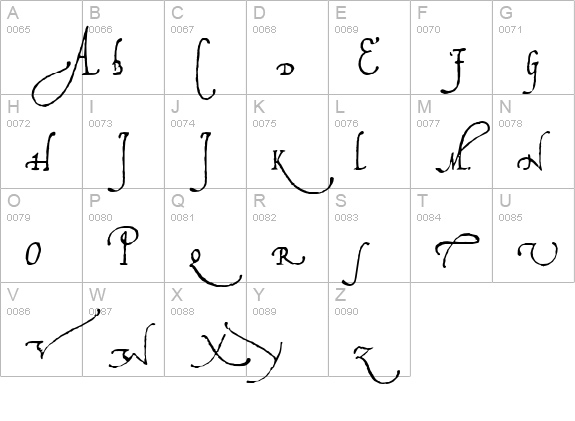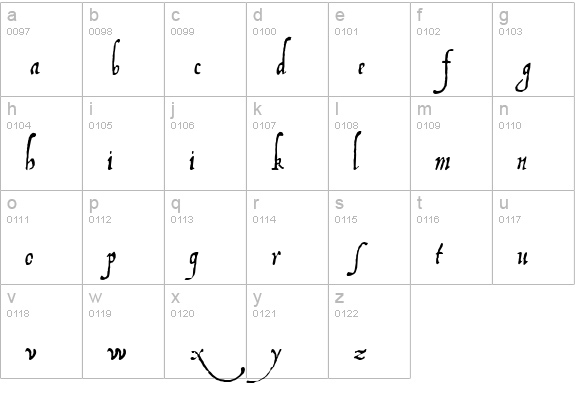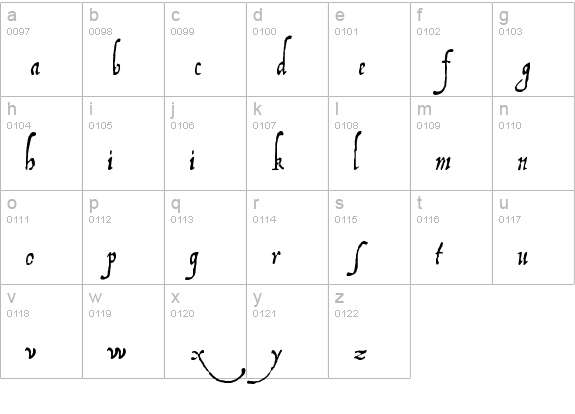
Ludovicos Font Details
Ludovicos font is a stunning and versatile typeface that exudes elegance and sophistication. Its graceful curves and sharp edges make it perfect for adding a touch of class to any design project. Whether you're creating a wedding invitation, a logo, or a poster, Ludovicos font will elevate your work to the next level. The best part about Ludovicos font is that it is completely free to download at FontsMarket.com. This means that you can access this premium font without having to spend a dime. With its timeless appeal and modern flair, Ludovicos font is a must-have in any designer's toolkit. Download Ludovicos font today and discover the endless possibilities it offers for your creative projects. Elevate your designs with this exquisite and free font that is sure to leave a lasting impression.